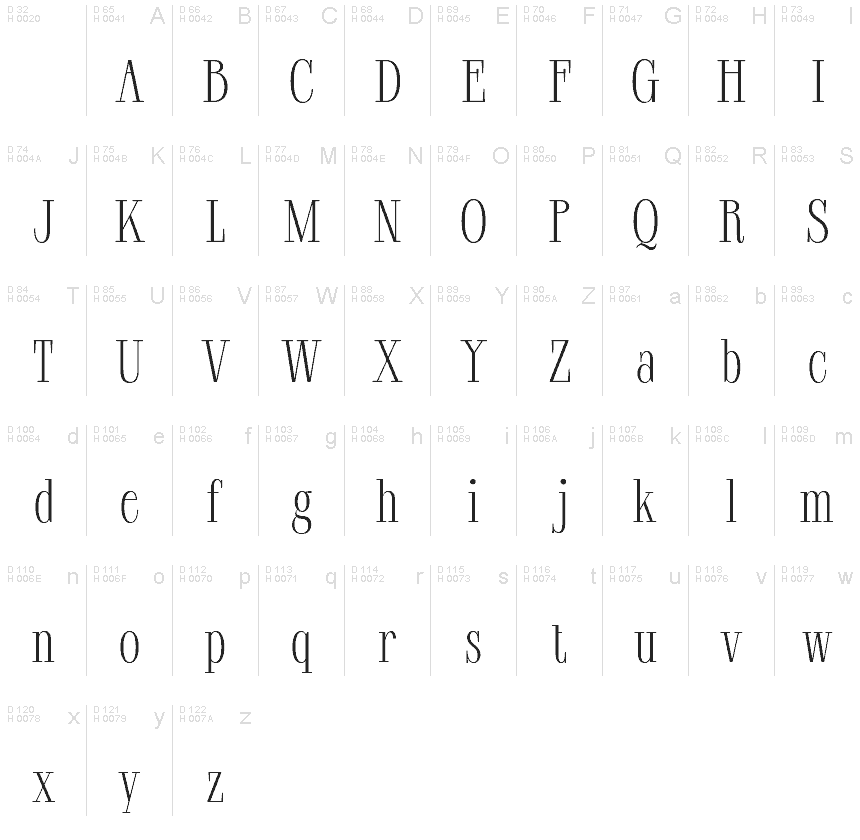
Savaira Demo Regular
Savaira font by Craft Supply Co is a condensed serif font that gives an elegant and modern feel to your artwork. Each letter within the typeface has contemporary and sophisticated visual elements which fit perfectly in minimalist branding projects.
Savaira is suitable for all kinds of fashion applications such as logos, apparel package designs, magazines. Use this free serif font for visual presence in beauty brandings or for professional use cases like business cards, stationery, and printed marketing materials.